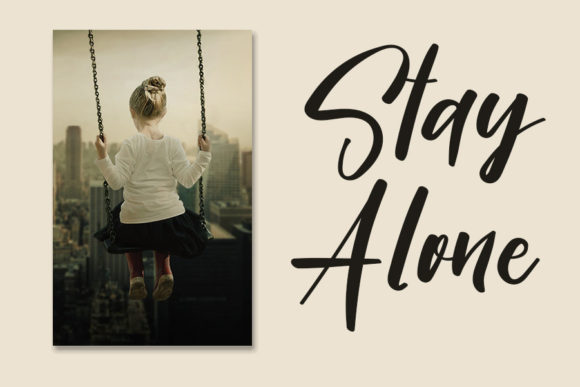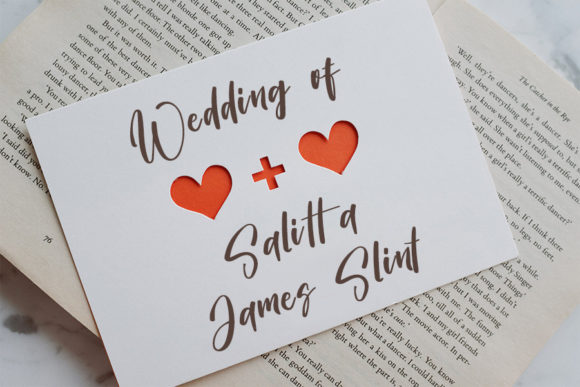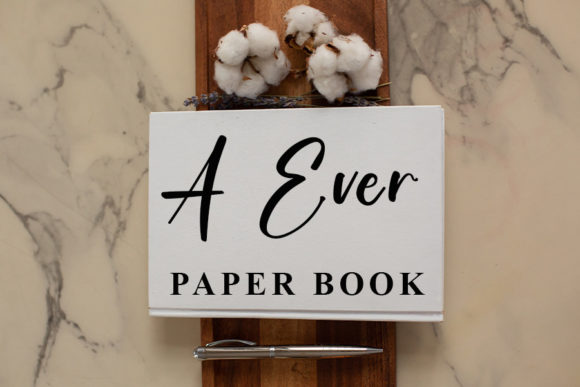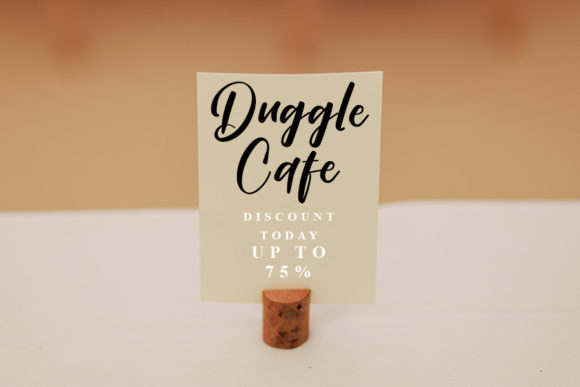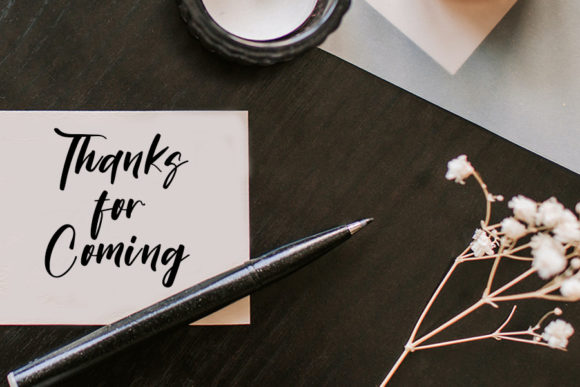
Girlfriend Font
About Girlfriend Font
Girlfriend is an elegant script font with a contemporary atmosphere and impeccable form, inspired by timeless classic calligraphy. Not too thin and not too thick, balanced and varied, this font was designed to enhance the beauty of your projects.